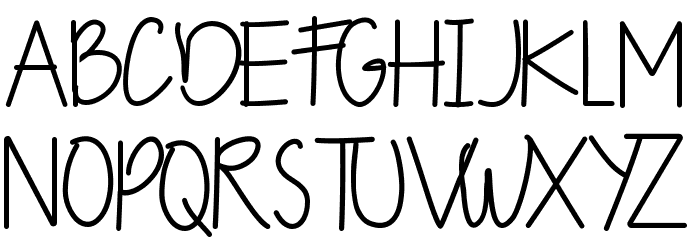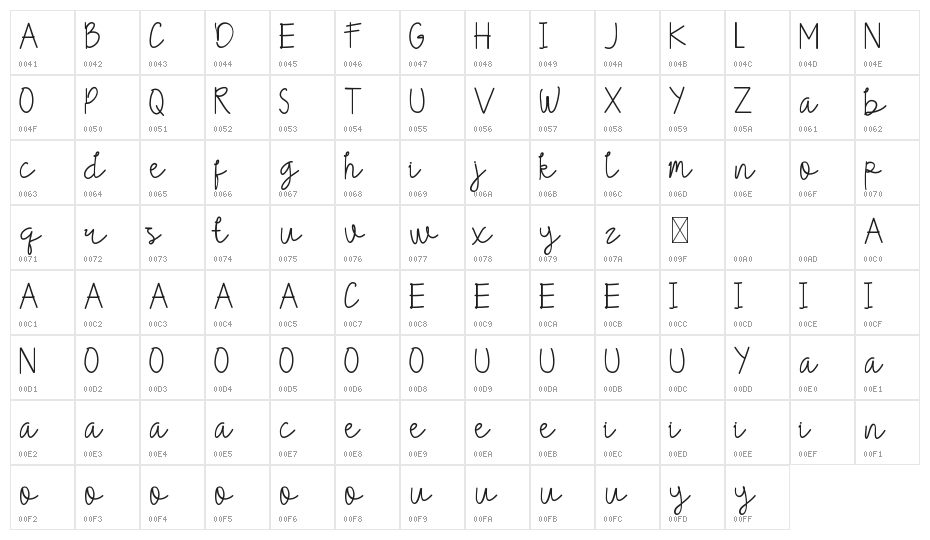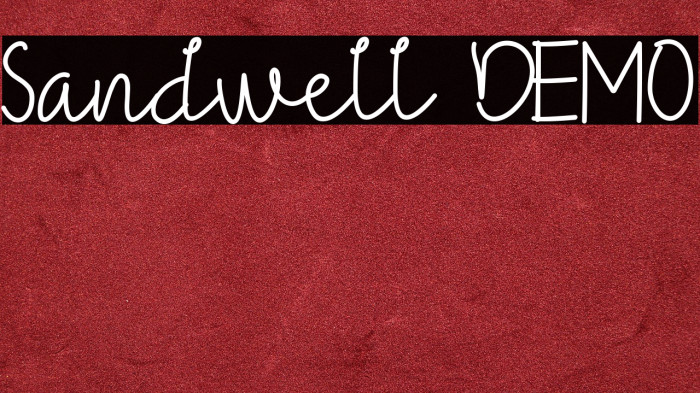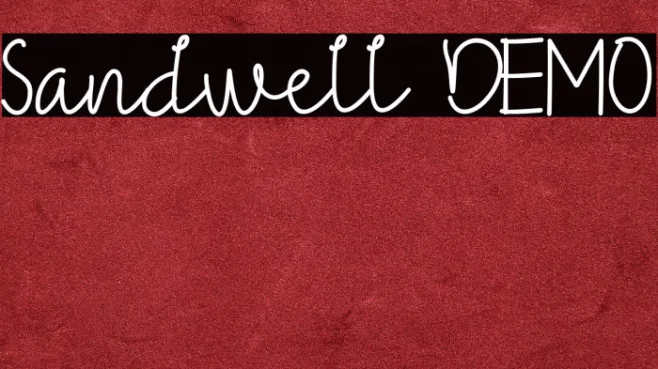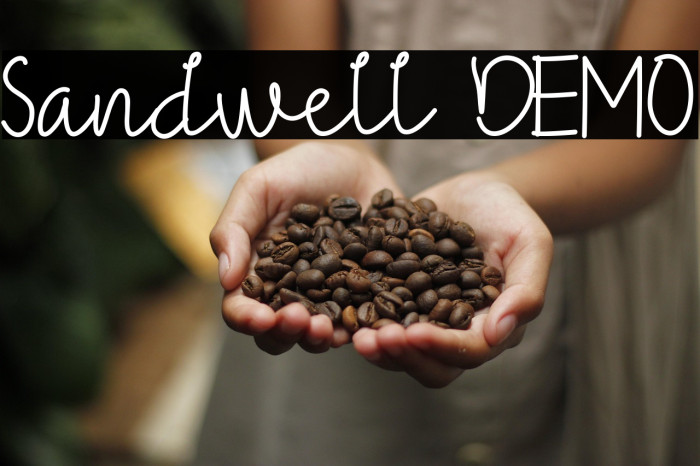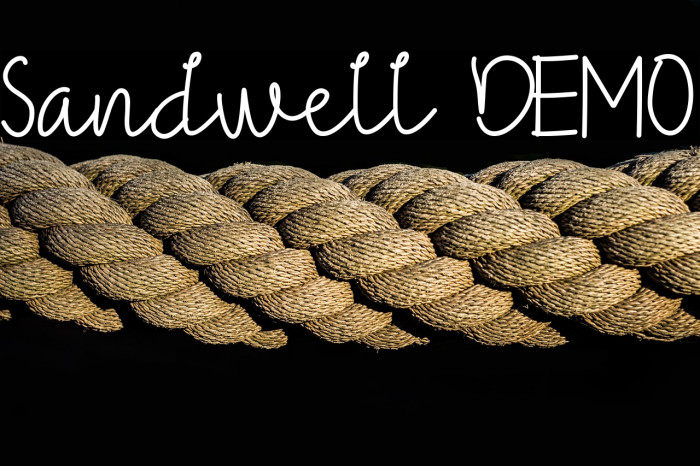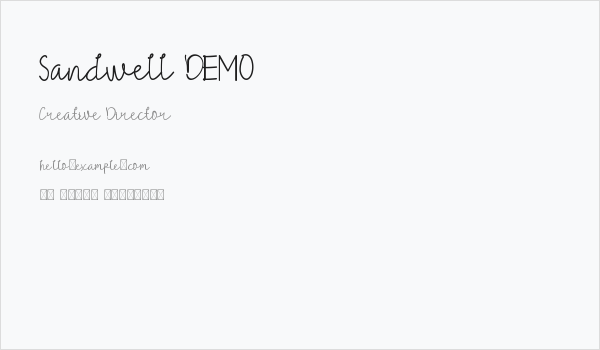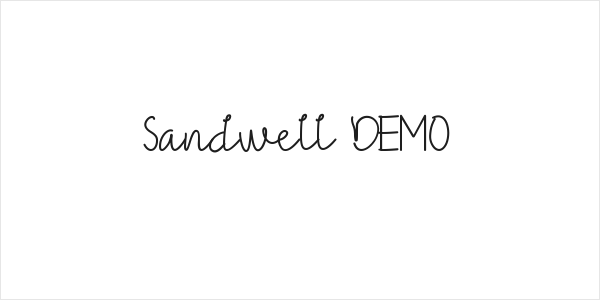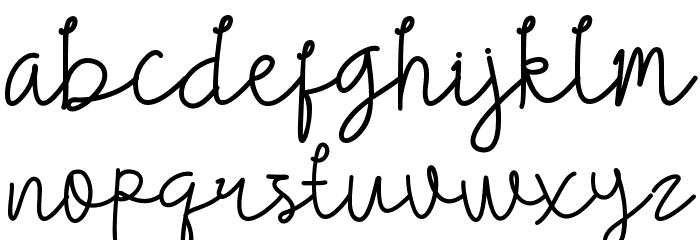
Sandwell DEMO Font
Sandwell DEMO Description
This font features a playful and casual handwritten style, characterized by its smooth, flowing lines and slightly irregular letterforms. The uppercase letters are tall and narrow, with a consistent stroke width that gives them a clean and modern appearance. The lowercase letters are more varied in height and have a whimsical, almost cursive quality, adding a touch of personality and charm. The font maintains a consistent baseline, ensuring readability while still conveying a sense of spontaneity. The overall design is versatile, making it suitable for a variety of creative projects.